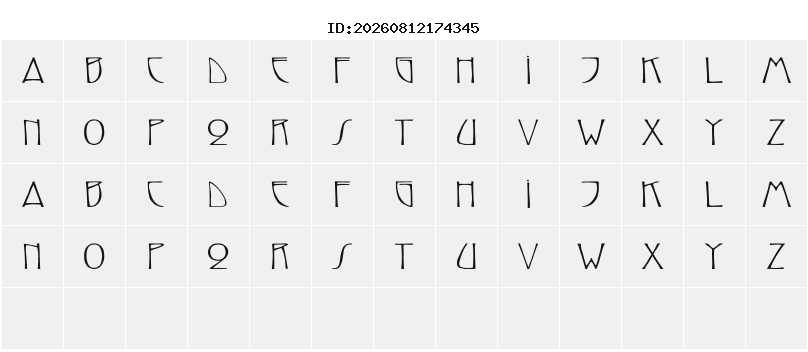
• Font Name: ReynoldCaps Ex
About ReynoldCaps Ex.ttf
ReynoldCaps Ex.ttf is a modern, elegant sans-serif font designed for ultimate readability and visual harmony. Perfect for branding, headlines, web design, and print materials.